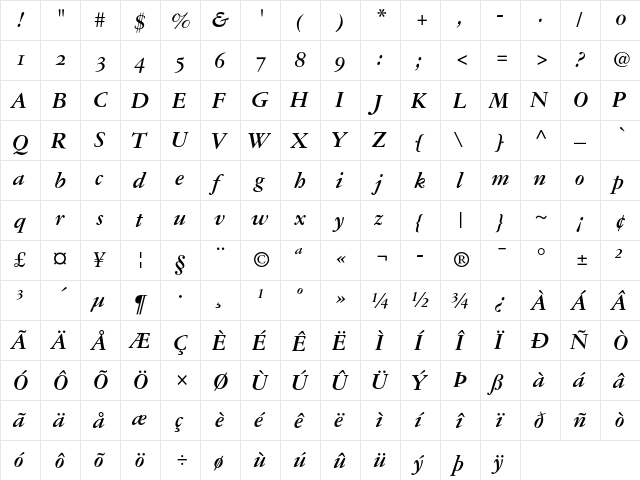
Garamond 3 Bold Italic OsF Font Preview
Design Context for Garamond 3 Typeface
Garamond 3 offers clean, dependable letterforms without strong stylistic allegiance, making it a practical choice for designers who need flexibility. Its italic angle brings a sense of urgency and motion to the letterforms. The heavy weight commands attention and anchors typographic hierarchies.
Pro Tip: Try Garamond 3 for annotation and caption copy alongside an upright companion — the contrast in angle creates a dynamic but ordered typographic system.